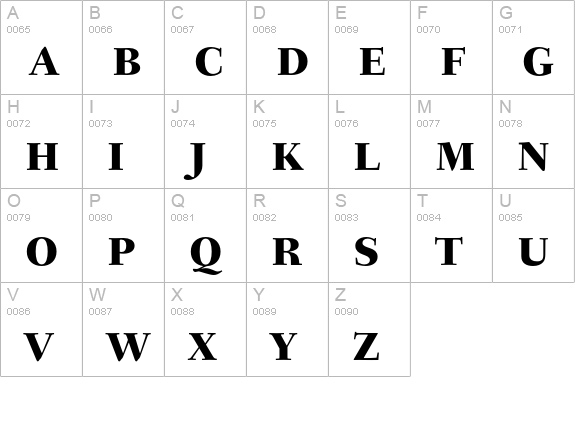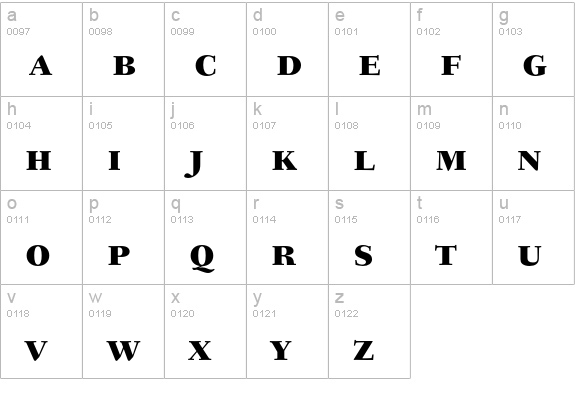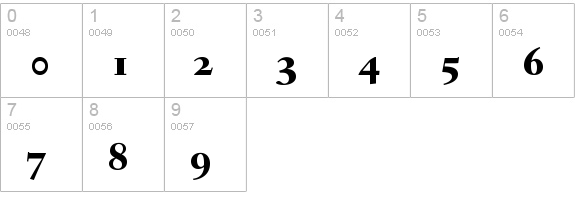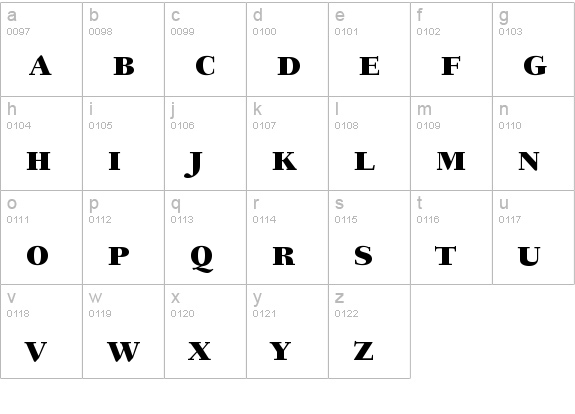
Fairfield LH 85 Heavy Small Caps & Old Style Figures is a heavy, high-impact variant in the Fairfield typeface family \xE2\x80\x94 well suited to high-impact headlines, posters, and display advertising.
Fairfield LH 85 Heavy Small Caps & Old Style Figures font is a classic and elegant typeface that exudes sophistication and timeless charm. With its heavy weight and small caps combined with old style figures, this font is perfect for adding a touch of luxury to any design project. The intricate details and vintage-inspired look of this font make it a standout choice for branding, editorial design, and more. Best of all, Fairfield LH 85 Heavy Small Caps & Old Style Figures font is freely available to download at FontsMarket.com. Whether you're a professional designer looking to elevate your projects or a hobbyist seeking a stylish font for personal use, this font is sure to impress with its versatility and beauty. Download it today and add a touch of class to your designs with this exquisite typeface.